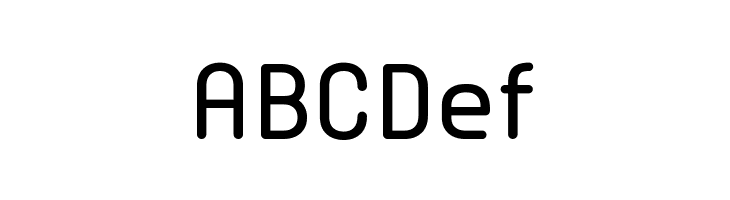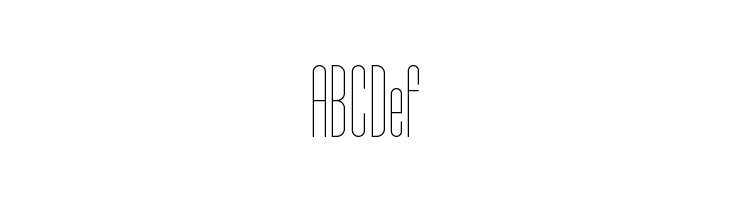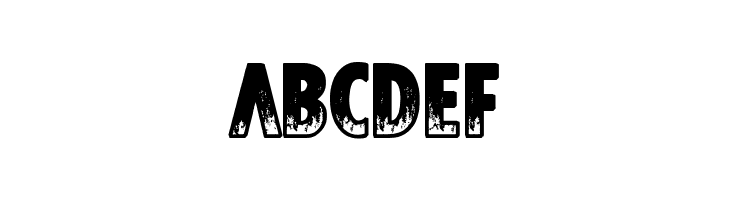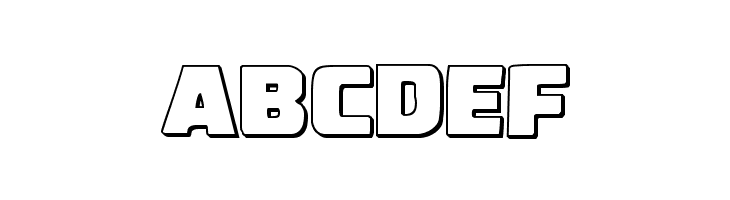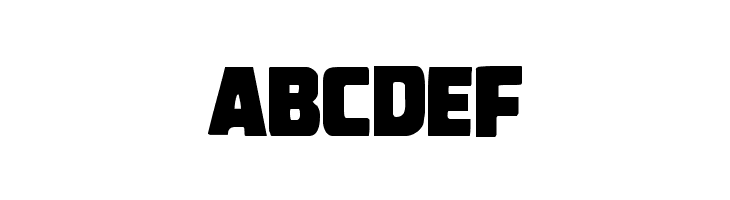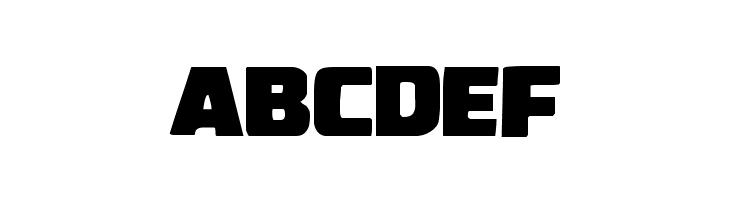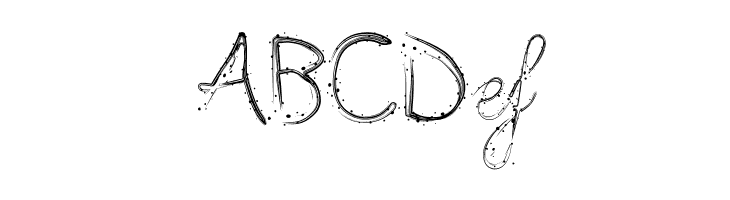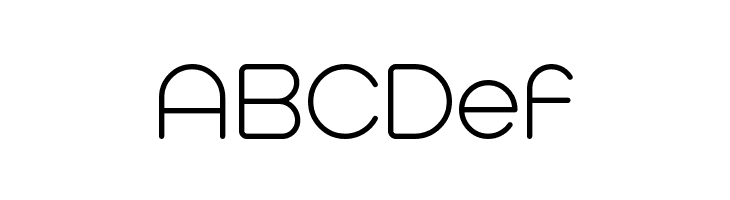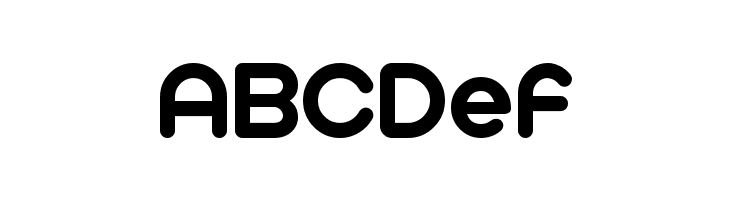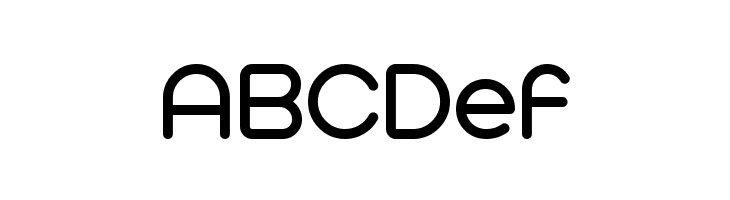
A modern, rounded sans-serif font with a clean and minimalistic style.
A bold, rounded font with smooth curves and a modern, playful style.
A minimalist, geometric font with thin, consistent strokes for a modern look.
A bold, inline font with rounded edges and a modern, playful style.
A modern, geometric font with rounded edges and balanced spacing.
A tall, narrow font with elongated letterforms and a modern, elegant style.
A bold, elongated font with a modern, condensed style.
A bold, italicized font with a sleek, modern look and medium contrast.
A sleek, italic font with elongated, narrow characters and a modern style.
A tall, slender, and modern font with thin strokes and a cohesive design.
A sleek, elongated italic font with a modern and dynamic style.
A modern, ultra-thin, elongated font with a sleek and elegant style.
A sleek, elongated, and italic font with thin strokes and a modern aesthetic.
A distressed, hand-drawn font with bold uppercase and cursive lowercase letters.
A modern, geometric font with rounded, uniform characters.
A modern, italic font with smooth curves and a sleek design.
A modern, rounded font with a playful and geometric style.
A playful, bold, and italicized font with rounded, smooth characters.
A bold, rounded font with a modern and playful style.
A playful, bold, and italicized font with rounded, smooth letters.
A sleek, modern italic font with thin strokes and rounded edges.
A sleek, modern font with thin, geometric lines and a minimalist style.
A modern, rounded sans-serif font with clean lines and balanced spacing.
A whimsical, heart-adorned font with tall, slender characters and a modern flair.
A playful, heart-accented decorative font with elongated, narrow characters.
A whimsical, heart-embellished font with tall, narrow letters and thin strokes.
A playful, modern script font with elongated strokes and decorative dots.
A playful, handwritten font with an informal and friendly style.
A bold, heavy font with thick strokes and a strong, impactful presence.
A bold, 3D-style font with strong outlines and a blocky appearance.
Bold, 3D italic font with outlined characters and a modern, dynamic style.
A bold, condensed font with a modern, geometric style.